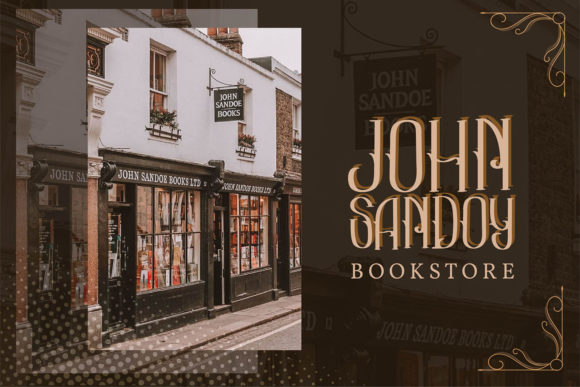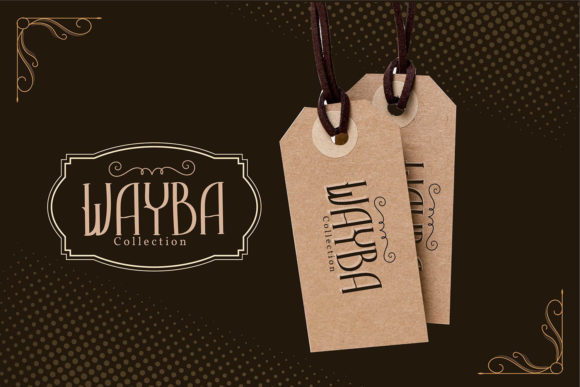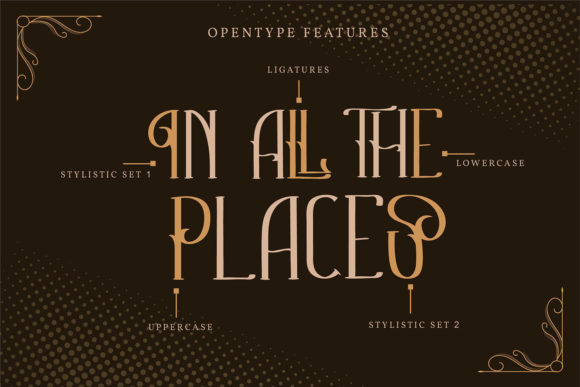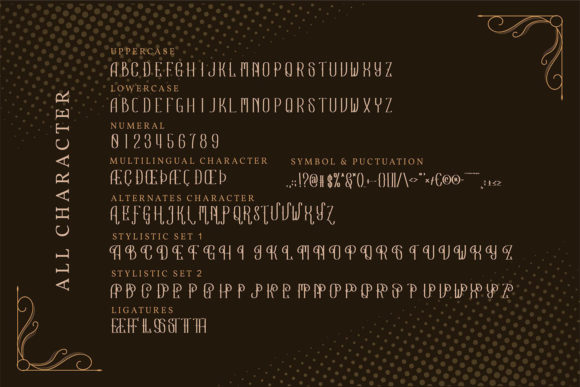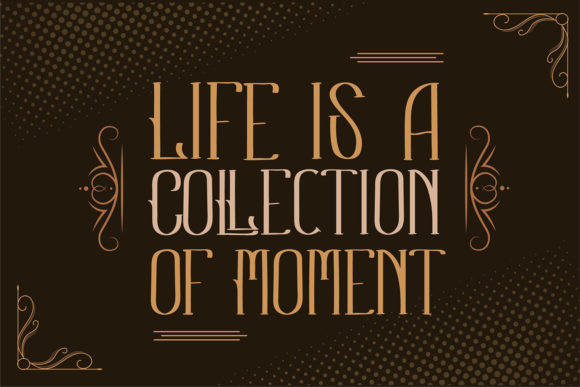
Introducing Boardway Font: A Timeless Classic for Elegant Designs
Are you a designer or crafter looking for a font that exudes elegance and sophistication? Look no further than Boardway Font, a classic and vintage display font that is perfect for a wide range of design projects. With its distinct look and PUA encoding, Boardway Font is a versatile and accessible choice for anyone looking to add a touch of refinement to their work.
What is Boardway Font?
Boardway Font is a beautifully crafted display font that is inspired by the classic typography of the past. Its elegant and refined appearance makes it perfect for use in logos, branding, invitations, stationery, wedding designs, social media posts, and much more. Whether you’re looking to create a sophisticated and luxurious feel or simply want to add a touch of vintage charm to your designs, Boardway Font is the perfect choice.
Key Features of Boardway Font
So, what sets Boardway Font apart from other fonts? Here are just a few of its key features:
- Classic and Vintage Look: Boardway Font has a timeless and sophisticated appearance that is perfect for designers and crafters who want to create elegant and refined designs.
- Elegant and Distinct: With its unique and stylish lettering, Boardway Font is sure to make your designs stand out from the crowd.
- PUA Encoded: Boardway Font is PUA (Private Use Area) encoded, which means that you can access all of the glyphs and swashes with ease. This makes it easy to customize your designs and add your own personal touch.
- Versatile: Boardway Font can be used for a wide range of design projects, from logos and branding to invitations and social media posts.
Uses for Boardway Font
So, what can you use Boardway Font for? The possibilities are endless! Here are just a few ideas to get you started:
- Logos and Branding: Use Boardway Font to create a sophisticated and elegant logo that will help your business stand out from the competition.
- Invitations and Stationery: Add a touch of vintage charm to your invitations and stationery with Boardway Font.
- Wedding Designs: Boardway Font is perfect for wedding designs, including wedding invitations, programs, and more.
- Social Media Posts: Use Boardway Font to add a touch of elegance and sophistication to your social media posts.
- Crafting Projects: Boardway Font is also perfect for crafters who want to add a personal touch to their projects, such as handmade cards and gift tags.
Why Choose Boardway Font?
So, why should you choose Boardway Font for your design projects? Here are just a few reasons:
- Unique and Distinctive: Boardway Font has a unique and distinctive look that will help your designs stand out from the crowd.
- Elegant and Sophisticated: Boardway Font exudes elegance and sophistication, making it perfect for designers and crafters who want to create refined and luxurious designs.
- Easy to Use: With its PUA encoding, Boardway Font is easy to use and customize, even for designers and crafters who are new to font design.
- Versatile: Boardway Font can be used for a wide range of design projects, making it a great addition to any design library.
In conclusion, Boardway Font is a classic and vintage display font that is perfect for designers and crafters who want to create elegant and sophisticated designs. With its distinct look and PUA encoding, Boardway Font is a versatile and accessible choice for anyone looking to add a touch of refinement to their work. Whether you’re looking to create a logo, invitation, or social media post, Boardway Font is the perfect choice. So why wait? Download Boardway Font today and start creating your own elegant and refined designs!